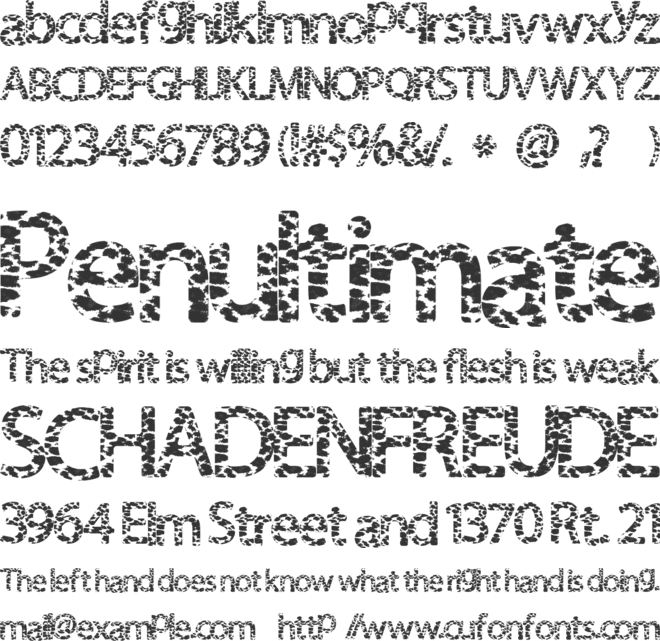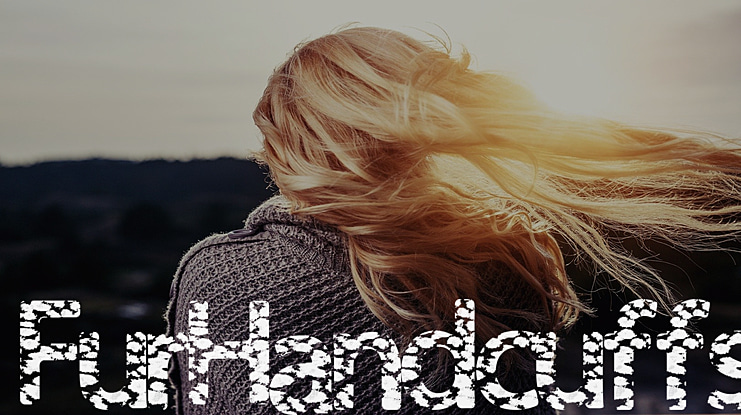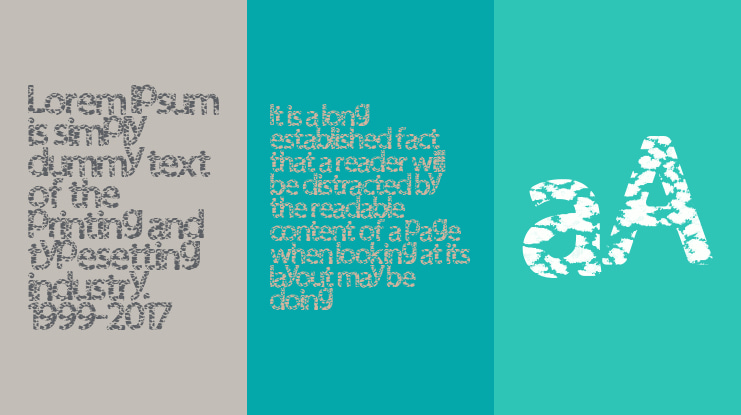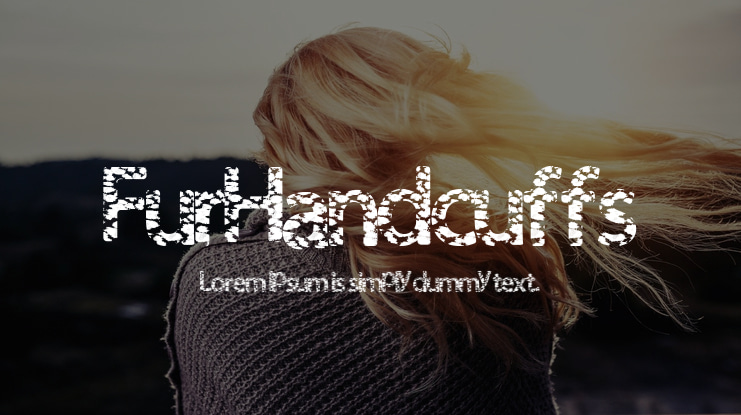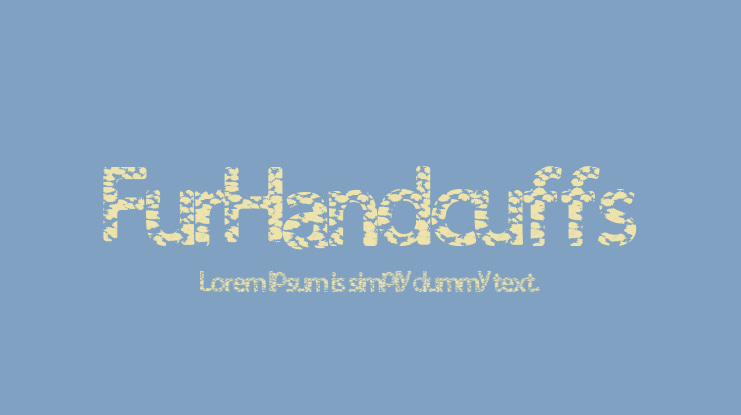
FurHandcuffs Font
***Contact for Any Commercial Use*** FurHandcuffs! ***Huge file caution when installing*** Enjoy this fur print font it is NOT Free!